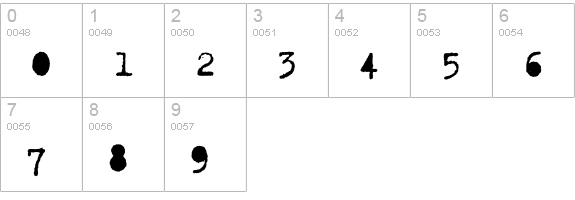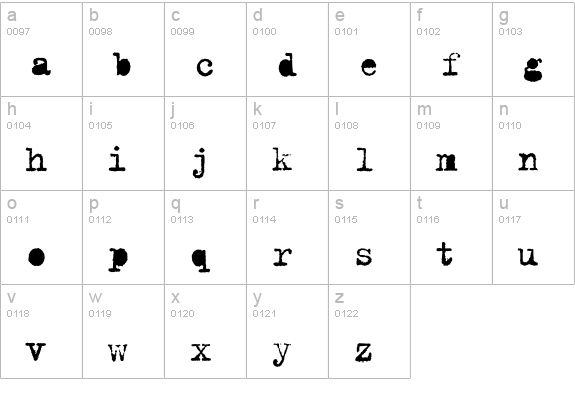
Trixie-Extra Font Details
Trixie-Extra font is a visually stunning and versatile typeface that will instantly elevate any design project. With its bold, yet playful letterforms, this font captures attention and adds a touch of personality to your creations. What sets Trixie-Extra font apart is not only its striking aesthetics, but also its accessibility. This font is freely available to download at FontsMarket.com, making it easily accessible to designers, artists, and creative individuals alike. Whether you're working on a professional project or simply looking to add some flair to your personal endeavors, Trixie-Extra font is the ideal choice. The clean lines and unique character of Trixie-Extra font make it suitable for a wide range of applications. From eye-catching headlines to attention-grabbing logos, this font is sure to make a lasting impression. Its versatility extends to various design styles, allowing you to effortlessly incorporate it into both modern and vintage-inspired projects. With Trixie-Extra font, your creativity knows no bounds. Its bold presence on the page commands attention, while its playful curves add a touch of whimsy. Whether you're designing a poster, creating social media graphics, or crafting a brochure, this font will bring your ideas to life with flair and impact. Don't miss out on the opportunity to enhance your designs with Trixie-Extra font. It's freely available to download at FontsMarket.com, allowing you to effortlessly add a touch of sophistication and charm to your projects. So why wait? Embrace the unique beauty of Trixie-Extra font and let your creativity shine.